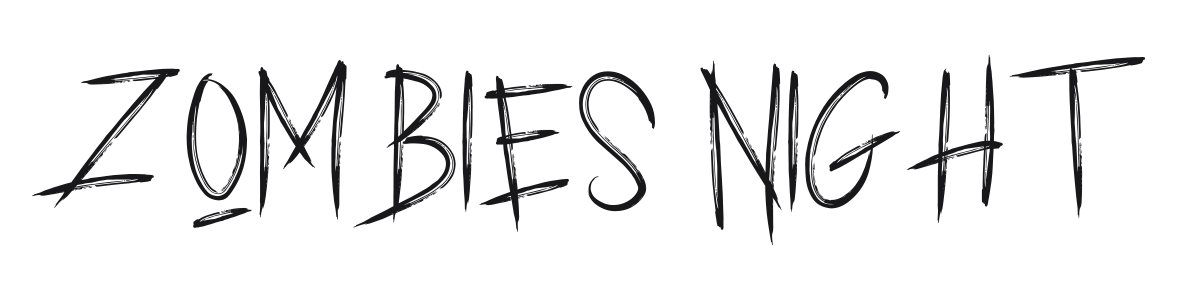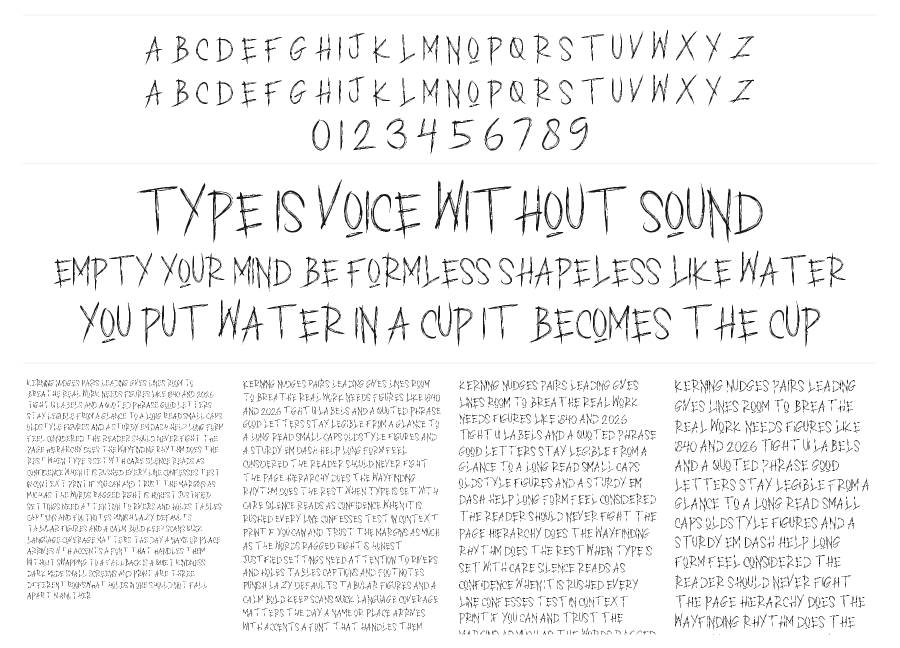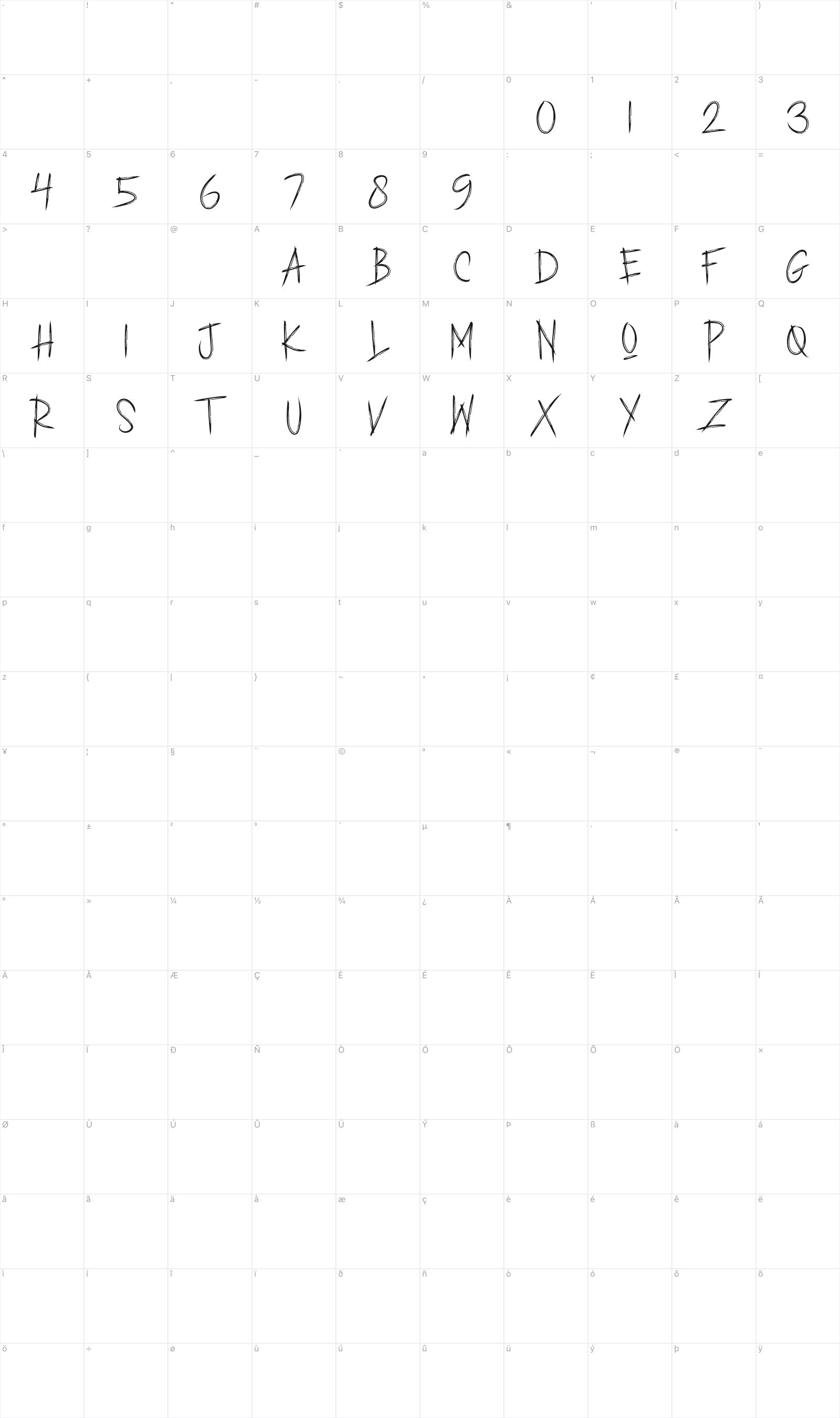
Zombies Night
Zombies Night is a tall, condensed display font built on scratchy, distressed strokes that evoke decay and dread. Each character splinters and frays at the terminals, giving the whole alphabet a skeletal, hand-drawn quality that feels genuinely unsettling at scale. Strong for horror film titles, Halloween event posters, and anything that needs to look like it crawled out of the ground.